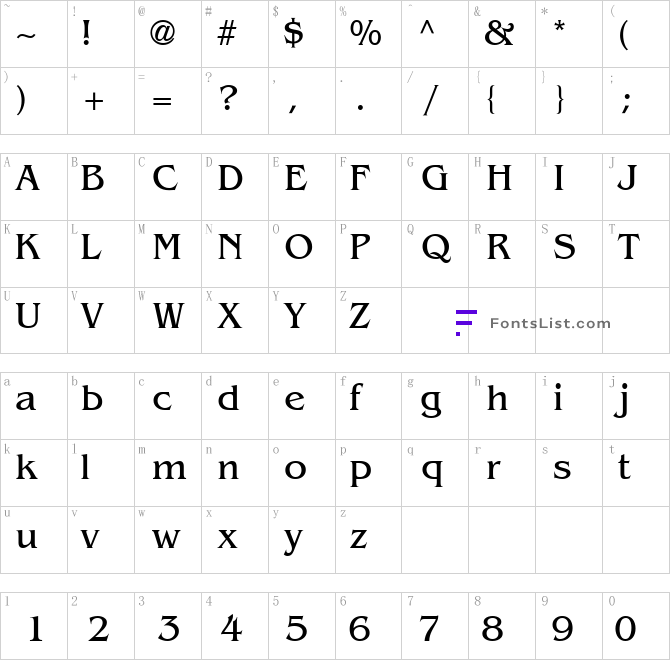
- Font Name:AGBenguiatCyr
AGBenguiatCyr-Book.ttf is a very beautiful artistic font, AGBenguiatCyr-Book.ttf is widely used in the design and printing of various books and pictures,AGBenguiatCyr-Book.ttf has a strong visual impact,AGBenguiatCyr-Book.ttf is a commonly used font in newspapers, magazines and books, and is used in posters, e-commerce Poster design, store design, logo design, font design and other fields.AGBenguiatCyr-Book.